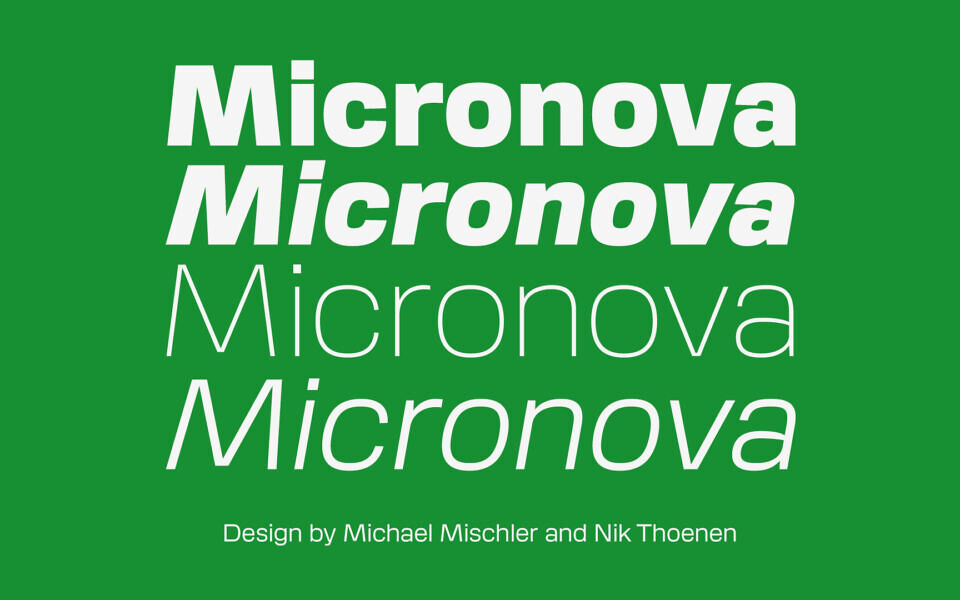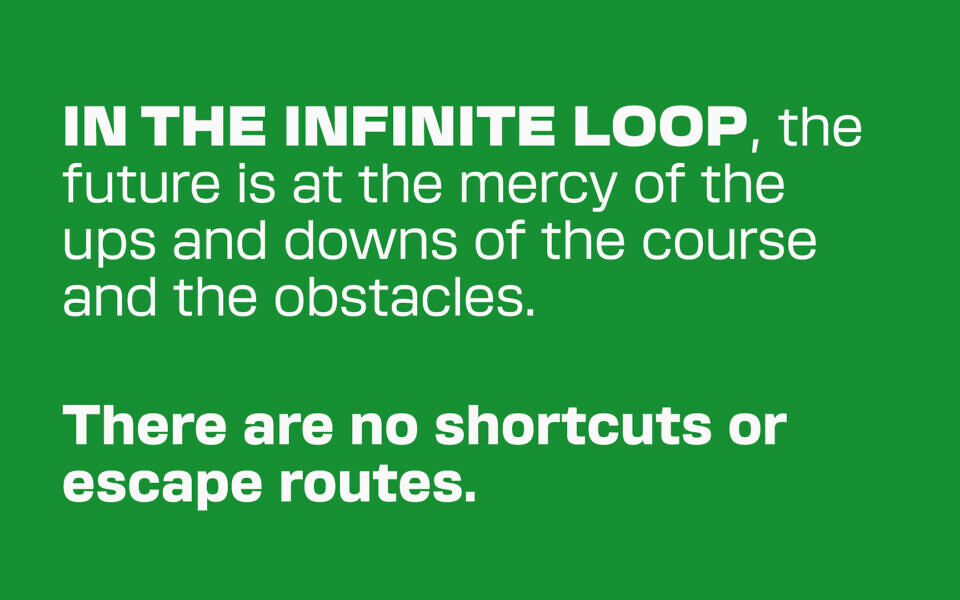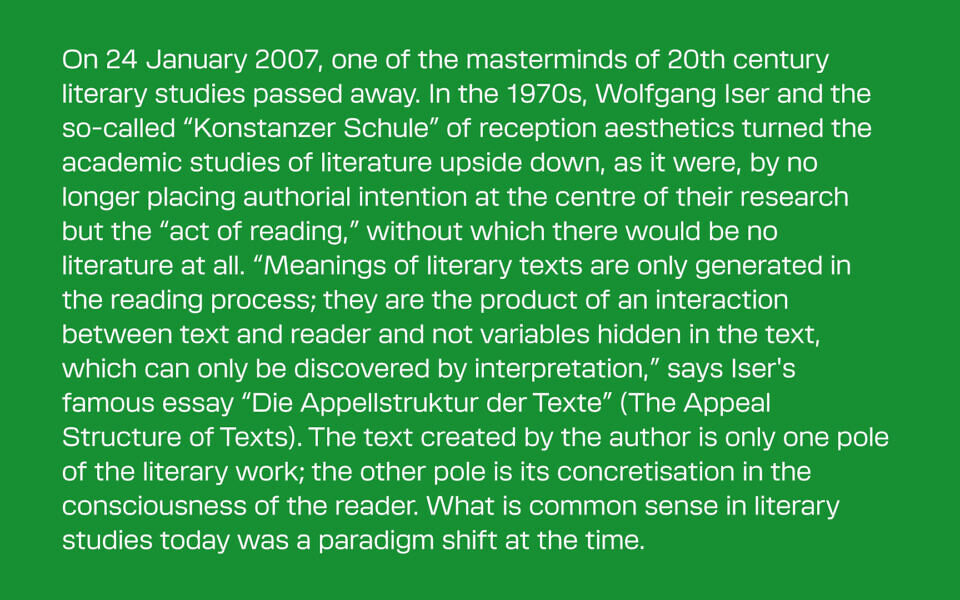
Micronova, a sans serif font, reinterprets modernist principles in a contemporary context. Inspired by Aldo Novarese’s Eurostile, it builds on the legacy of Microgramma, a 1950s font characterized by its super-elliptical shape.
The font family features a clean, linear design with a mathematical system, offering three axes for precise control. Its Variable Font and OpenType features enable smooth adjustments, making it a sophisticated tool for fine-tuned typesetting in any environment.